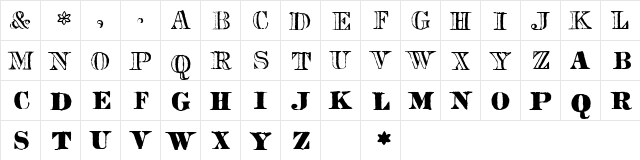
Roman Engraved HPLHS
Design Context for Roman Engraved Typeface
Roman Engraved brings ornamental detail and strong personality to headlines and identities, where visual impact matters more than quiet functionality.
Font Pairing: Pair with a clean neutral sans-serif for body copy to let Roman Engraved's character lead without overwhelming the composition.
Pro Tip: Treat Roman Engraved as the centrepiece of your typographic hierarchy. One strong heading set in a decorative face can carry an entire layout.